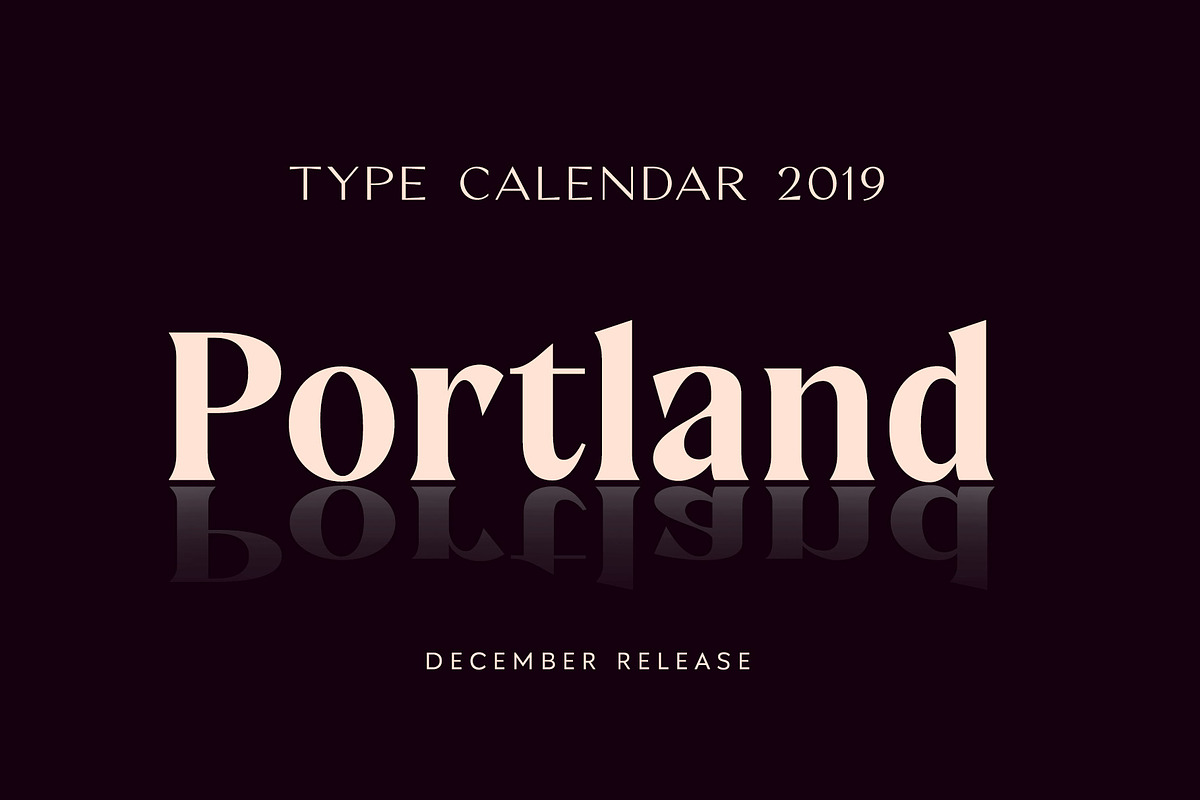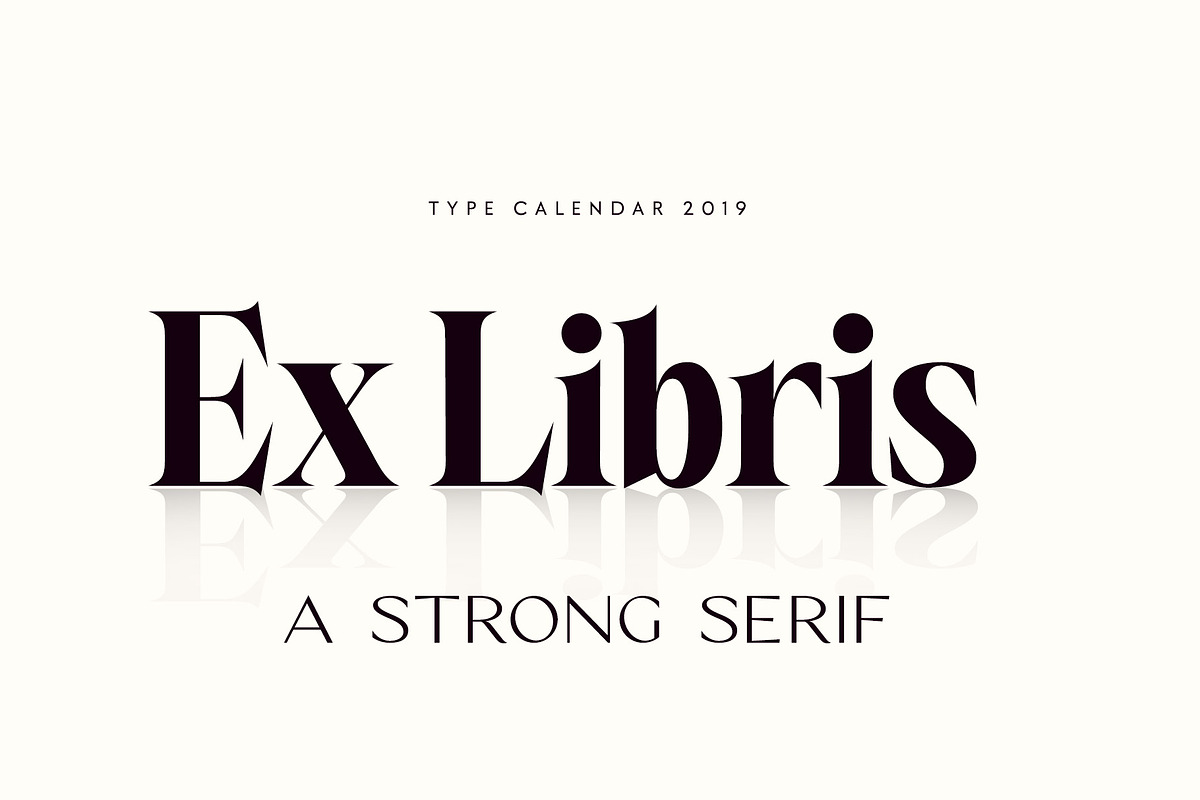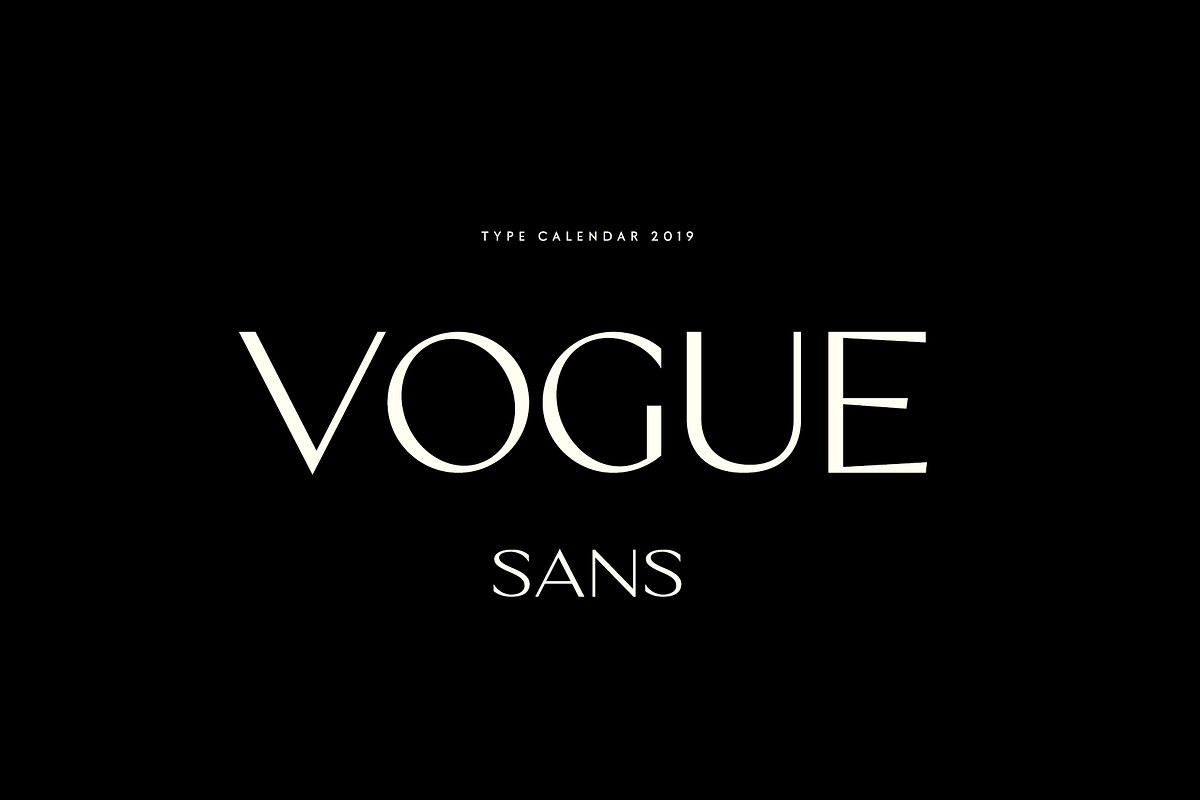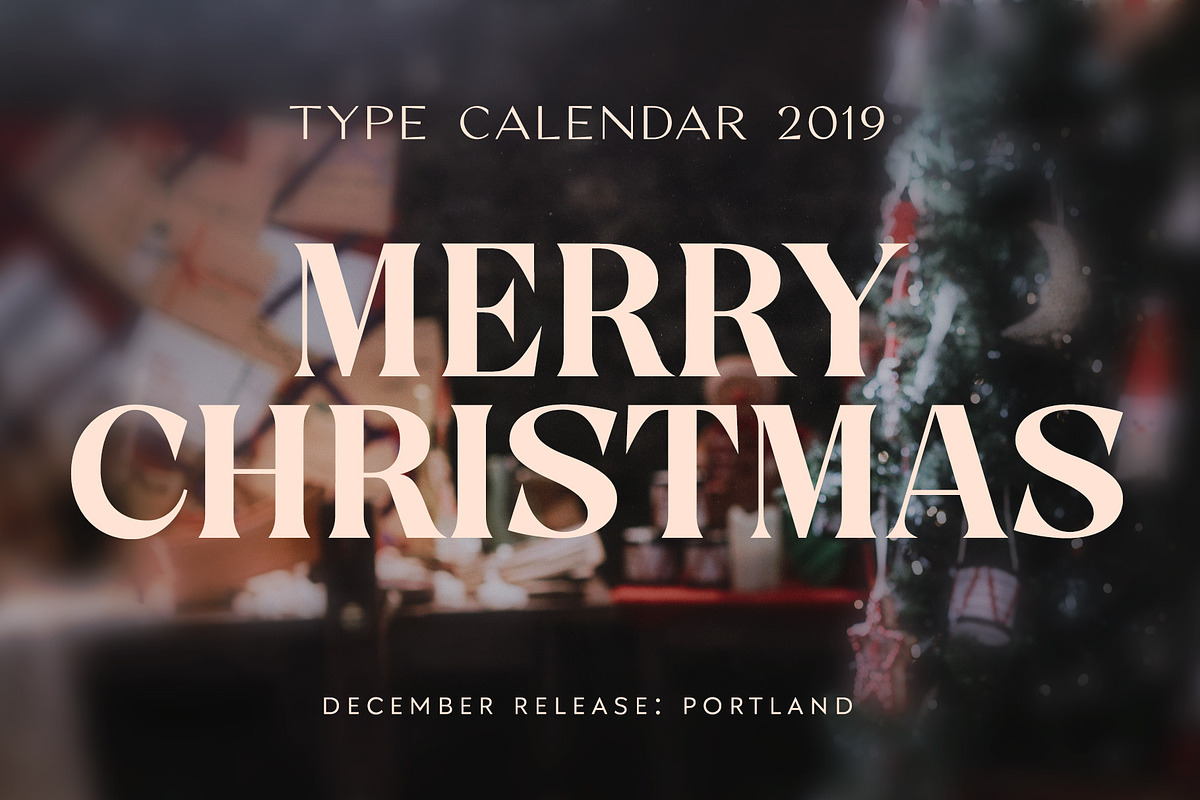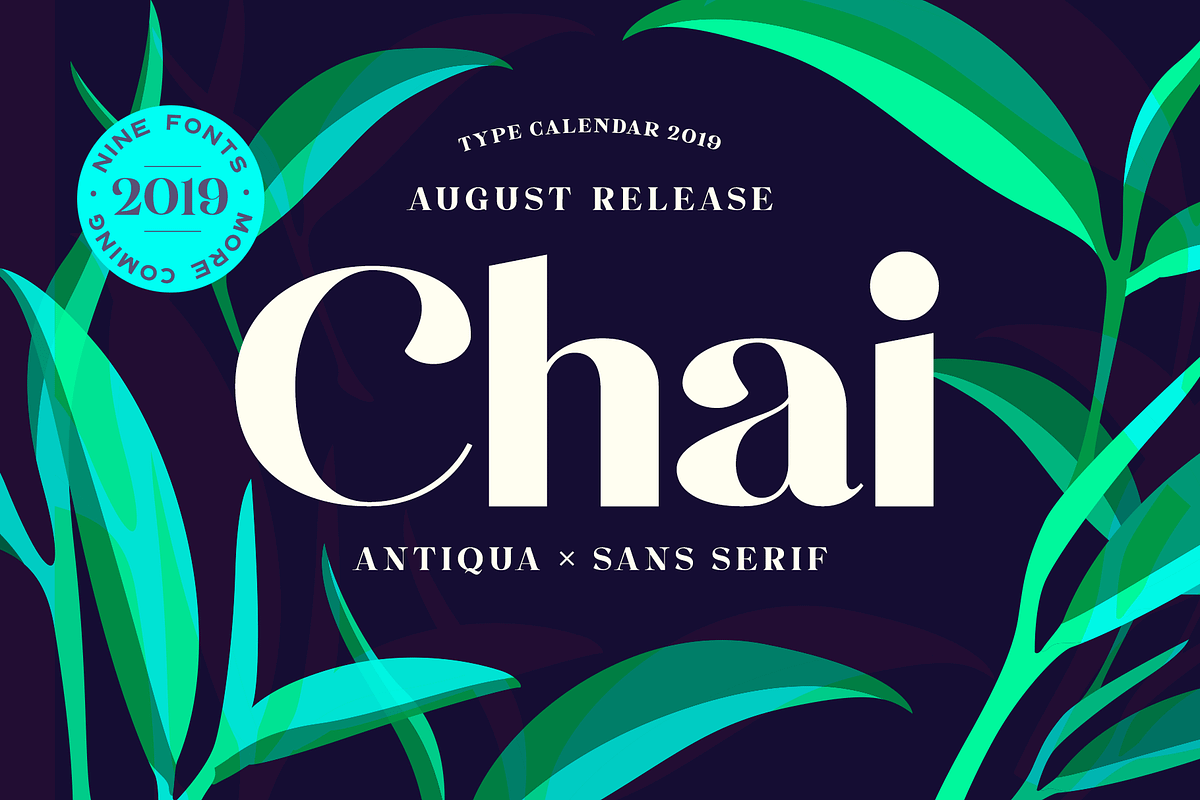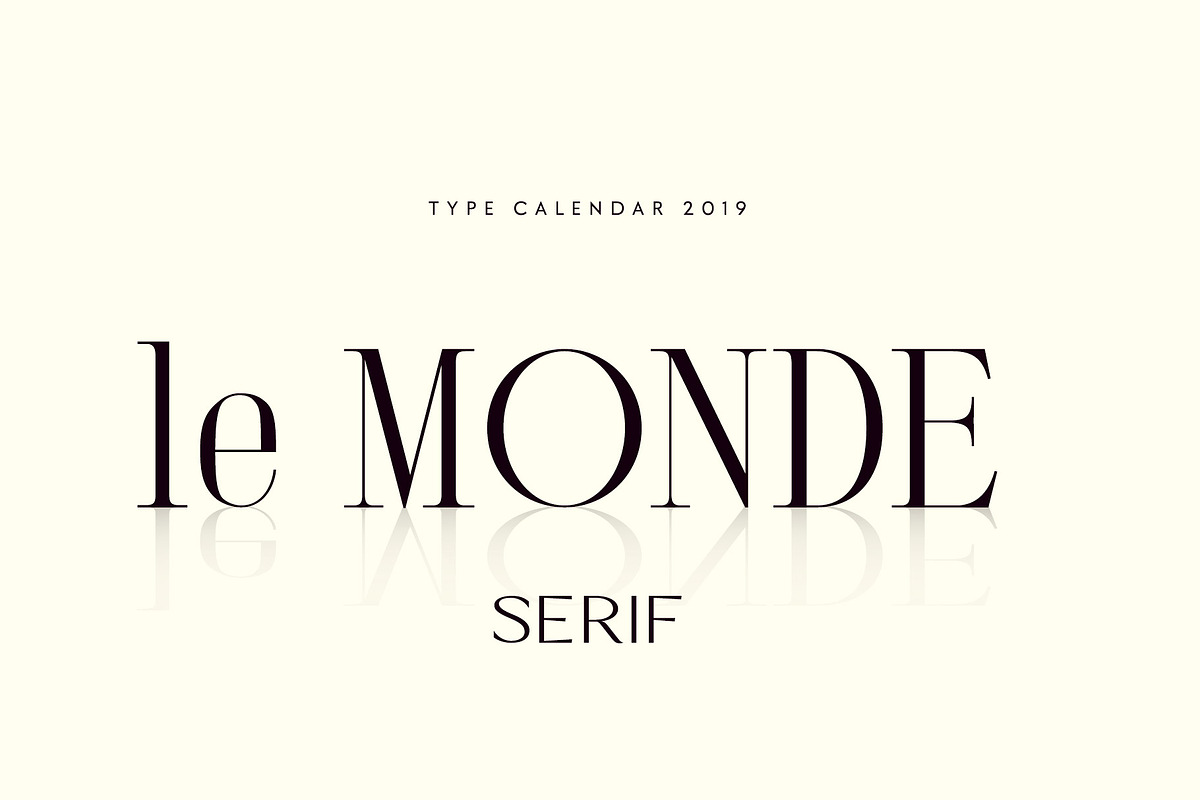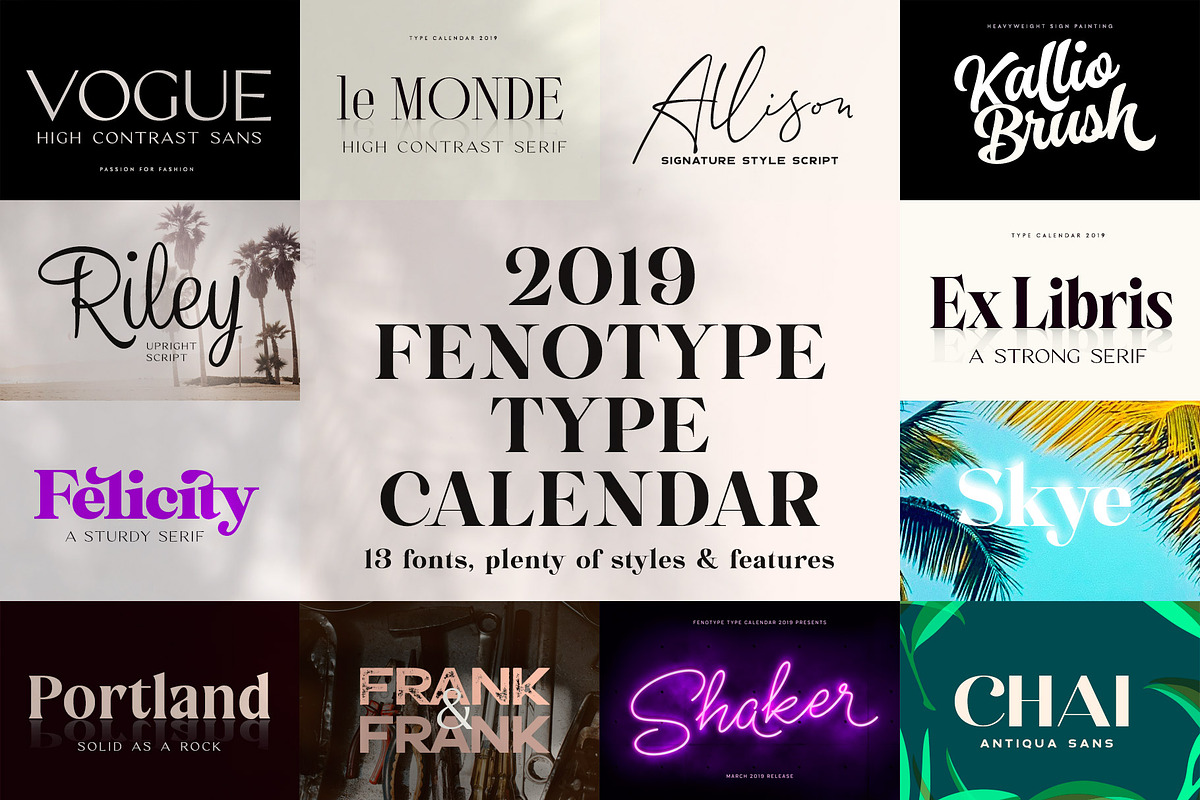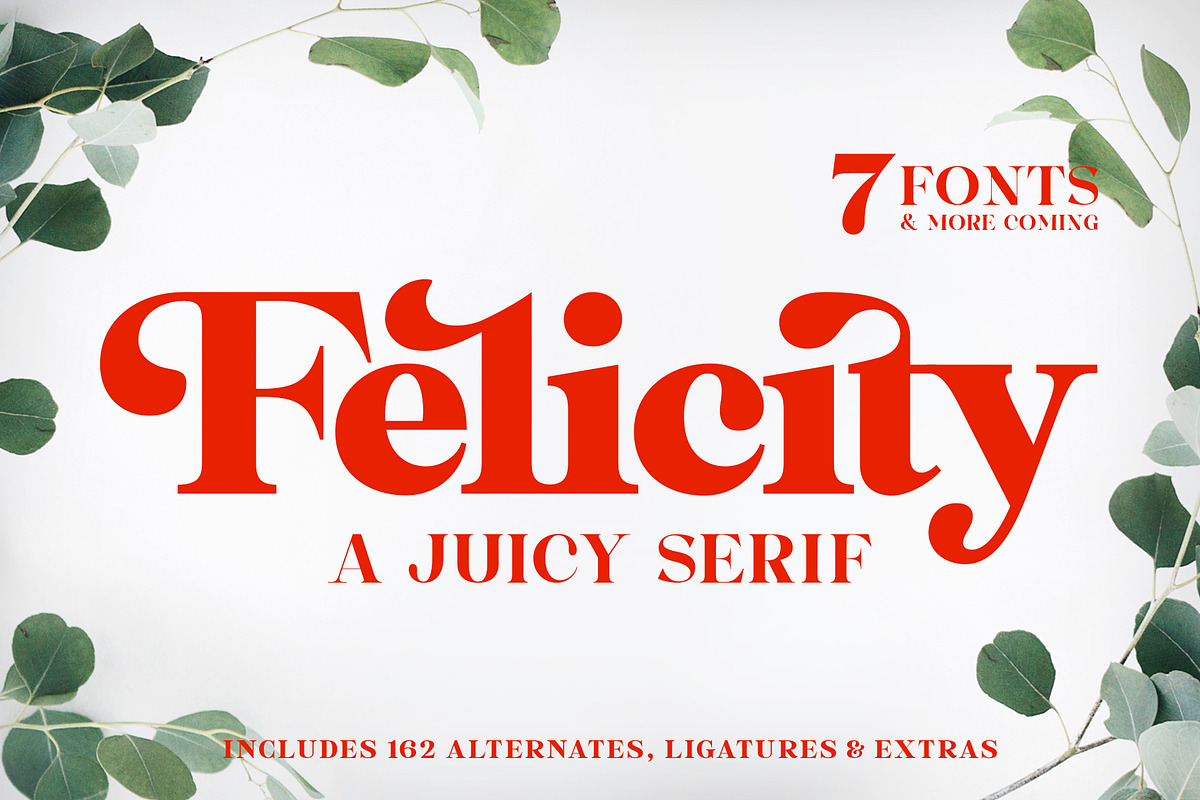
Type Calendar 2019 | Font Bundle
INTRODUCTION THE FONTS:
The first release of the bundle is Allison: a hand drawn signature style Script. Allison is great for branding, headlines, invitation cards or even as a logotype. Allison is equipped with over 100 Contextual Alternates and Standard Ligatures to keep the flow vivid and maintain hand drawn impression. These features are automatically ON, all you need to do is type! In addition Allison has Swash alternates for every standard character in case you need some extra flair. From Discretionary Ligatures you’ll find “st”, “nd”, “rd” and “th” ligatures designed to be used with numbers.
The second release of the bundle is Riley: an elegant brush Script with its roots in the 1950s American sign painting. Riley has Stylistic Alternates for every lowercase standard character and it’s equipped with Contextual Alternates (and Ligatures) that keep the flow and connections smooth. Riley is great for headlines and posters or as a logotype with an elegant touch.
The third release of the bundle is Shaker: a neon style monoline Script. Shaker has Swash Alternates for every uppercarse and lowercase standard character and it’s equipped with Contextual Alternates that keep the flow and connections smooth. Shaker is great for headlines, packaging, neon sign or as a logotype or any display use.
The fourth release of the bundle is Skye: a stylish high contrast serif font. Skye is equipped with Contextual Alternates and Ligatures that are automatically on. Skye is very suitable high-end design, fashion, logos and any display use.
The fifth release of the bundle is Kallio: a Bold Brush Script with roots in American sign painting culture. Kallio is Finnish and means rock or cliff. Kallio is equipped with Contextual Alternates for smooth connections and Swash Alternates for every standard letter.
The sixth release of the bundle is Frank: a sturdy sans with rough edge and print texture + a clean version. Frank is big and bold and great for headlines and posters.
The seventh release of the bundle is Felicity: a bold high contrast serif with over 160 alternates & extras. Felicity also automatic Contextual Alternates & Standard Ligatures that keep the kerning of the font tight & neat. For more experimental characters Felicity is equipped with Discretionary Ligatures, Swash, Stylistic & Titling Alternates and from the glyph palette you'll find a selection of ornaments.
The eighth release of the bundle is Chai: a bold high contrast sans. Chai has class based kerning and it's great for display or headlines.
The ninth release of the bundle is Vogue Sans: a luxurous sans serif with well suited for fashion, haute couture or glamorous headlines. Try typing any word or name with Vogue Sans and it'll look great. Vogue Sans is equipped with several interlocking ligatures - CC, CO, LA, LC, LL, LE, OO & TT. Vogue Sans also has Swash & Titling Alternates for letters A K L T X Q R and Stylistic Alternates for letters K and R.
The tenth release of the bundle is Le Monde: A condensed high contrast serif suitable for luxurious and sophisticated tasks. Le Monde gives an elegant and civilized impression. In case you need extra flair Le Monde is equipped with Swash, Stylistic and Titling Alternates and even more alternates in the glyph palette.
The eleventh release of the bundle is Ex Libris: An elegant high contrast serif with plenty of OpenType goodness: Swash, Stylistic and Titling Alternates, and a pack of Discretionary Ligatures on capital letters.
The twelth release of the bundle is Portland: A solid flare serif with slight rotation and moderately high contrast. Great for logotypes, branding & packaging.
Allison, Riley, Shaker, Skye, Kallio, Frank, Felicity, Le Monde, Ex Libris and Portland are PUA encoded so you can access extra characters in any graphic design app even without OpenType support. Their outlines are clean and smooth so it will also work laser cut, and any printing techniques.
The fonts include a full set of uppercase and lowercase letters, numerals, punctuation and wide language support including Afrikaans, Albanian, Asu, Basque, Bemba, Bena, Bosnian, Catalan, Chiga, Congo Swahili, Cornish, Croatian, Czech, Danish, Dutch, Embu, English, Esperanto, Estonian, Faroese, Filipino, Finnish, French, Galician, German, Gusii, Hungarian, Icelandic, Indonesian, Irish, Italian, Kabuverdianu, Kalaallisut, Kalenjin, Kamba, Kikuyu, Kinyarwanda, Latvian, Lithuanian, Luo, Luyia, Machame, Makhuwa-Meetto, Makonde, Malagasy, Malay, Maltese, Manx, Maori, Meru, Morisyen, North Ndebele, Norwegian Bokmål, Norwegian Nynorsk, Nyankole, Oromo, Polish, Portuguese, Romansh, Rombo, Rundi, Rwa, Samburu, Sango, Sangu, Sena, Serbian (Latin), Shambala, Shona, Slovak, Slovenian, Soga, Somali, Spanish, Swahili, Swedish, Swiss German, Taita, Teso, Vunjo, Welsh, Zulu.
- Allison is equipped with over 100 Contextual Alternates and Standard Ligatures to keep the flow vivid and maintain hand drawn impression.
- In addition Allison has Swash alternates for every standard character in case you need some extra flair.
- From Discretionary Ligatures you’ll find “st”, “nd”, “rd” and “th” ligatures designed to be used with numbers.
- Riley has Stylistic Alternates for every lowercase standard character and it’s equipped with Contextual Alternates (and Ligatures) that keep
- Shaker has Swash Alternates for every uppercarse and lowercase standard character and it’s equipped with Contextual Alternates that keep the
- Skye is equipped with Contextual Alternates and Ligatures that are automatically on.